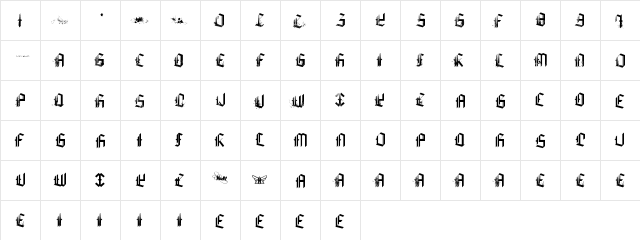
KILL THE PANDA Regular
| Designer | M.K.V |
Design Context for KILL THE PANDA Typeface
KILL THE PANDA is a composed and adaptable typeface that performs quietly and consistently across a wide range of design contexts.